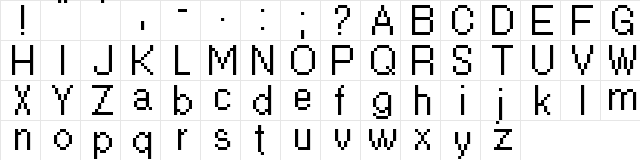
Hellovetica Regular
Design Context for Hellovetica Typeface
Hellovetica offers clean, dependable letterforms without strong stylistic allegiance, making it a practical choice for designers who need flexibility.